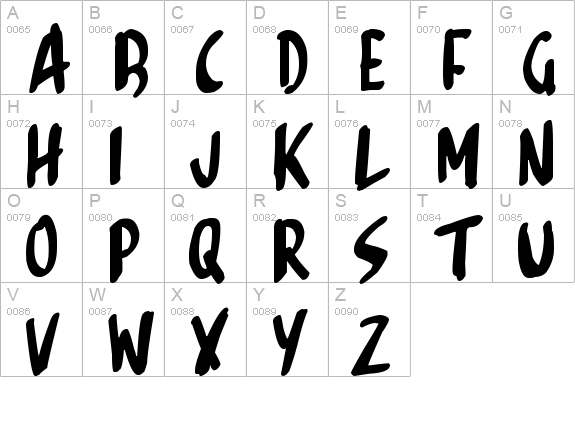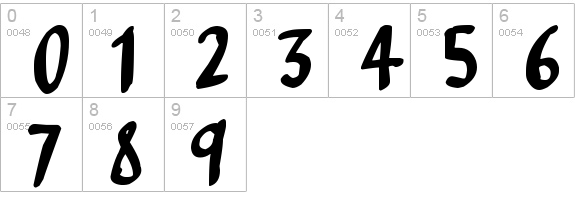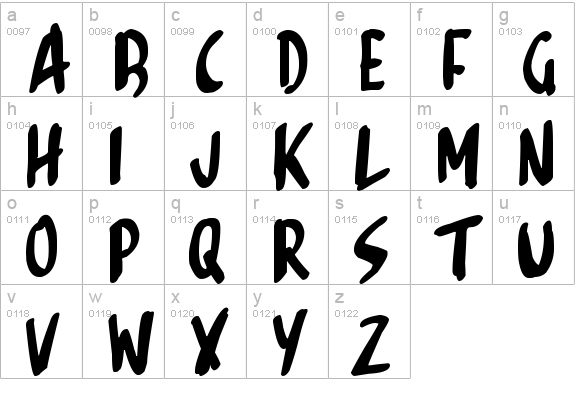
Introducing Sketchalot font, a whimsical and charming typeface perfect for adding a touch of creativity to your designs. This playful font features hand-drawn elements and a quirky style that will instantly bring a fun and unique look to any project. Whether you're working on invitations, posters, or branding materials, Sketchalot font is sure to make your text stand out.